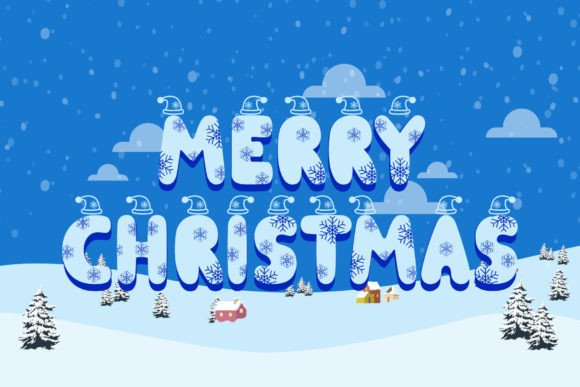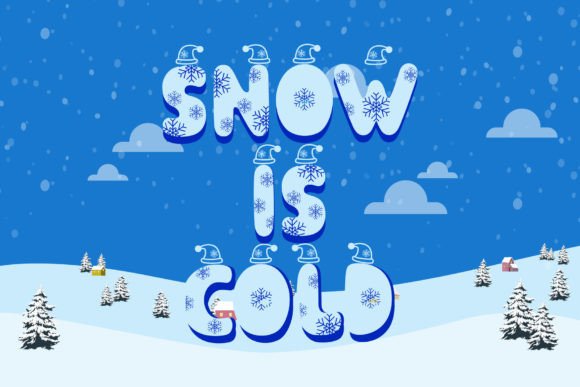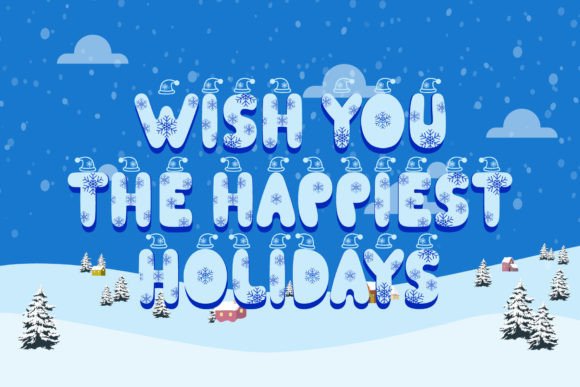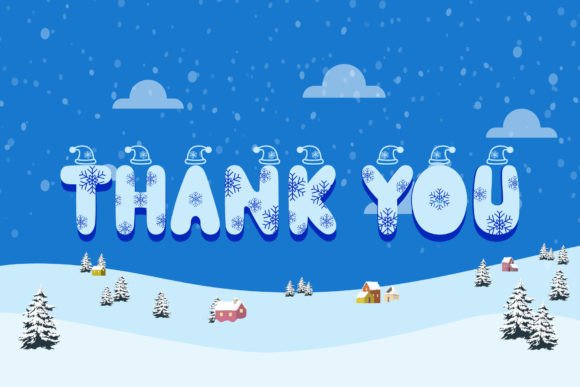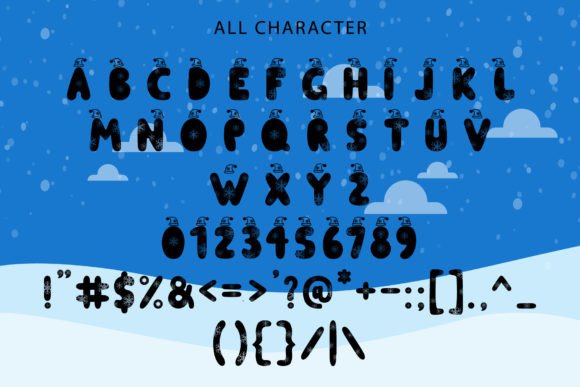
Christmas Snow Font: Add a Touch of Magic to Your Designs
Are you looking for a font that captures the essence of the holiday season? Do you want to add a touch of magic to your designs, greeting cards, and headlines? Look no further than the Christmas Snow Font! This versatile, stylish, groovy, and playful retro display font is perfect for a wide spectrum of applications, and we’re excited to dive into its features and uses.
What is Christmas Snow Font?
Christmas Snow Font is a unique and eye-catching typeface designed to evoke the feeling of a winter wonderland. Its playful and romantic vibe makes it an excellent choice for designers, crafters, and anyone looking to add a personal touch to their projects. With its exquisite and stylish design, this font is sure to make your creations stand out from the crowd.
Key Features of Christmas Snow Font
- Versatile: Christmas Snow Font is suitable for a wide range of applications, from greeting cards and headlines to posters, flyers, and more.
- Stylish: The font’s retro display design gives it a stylish and sophisticated look that’s perfect for adding a touch of elegance to your projects.
- Groovy: The playful and whimsical vibe of Christmas Snow Font makes it an excellent choice for designers looking to add a fun and carefree touch to their designs.
- Playful: The font’s playful design ensures that your projects will be eye-catching and engaging, perfect for capturing the attention of your audience.
Uses of Christmas Snow Font
Christmas Snow Font is perfect for a variety of projects, including:
- Greeting Cards: Add a personal touch to your holiday greeting cards with this beautiful and unique font.
- Headlines: Make your headlines stand out with Christmas Snow Font’s stylish and playful design.
- Posters and Flyers: Use this font to create eye-catching posters and flyers for your holiday events or promotions.
- Social Media Graphics: Add a touch of magic to your social media graphics with Christmas Snow Font.
- Invitations: Create beautiful and elegant invitations for your holiday parties or events.
Tips for Using Christmas Snow Font
To get the most out of Christmas Snow Font, here are a few tips:
- Pair it with other fonts: Experiment with pairing Christmas Snow Font with other fonts to create a unique and eye-catching combination.
- Use it sparingly: While Christmas Snow Font is beautiful, it’s best to use it sparingly to avoid overwhelming your design.
- Experiment with colors: Try out different colors and textures to add depth and interest to your design.
| Font Name | Christmas Snow Font |
| Author | Kido Studio |
Christmas Snow Font is a versatile, stylish, groovy, and playful retro display font that’s perfect for adding a touch of magic to your designs. With its exquisite and stylish design, this font is sure to make your projects stand out from the crowd. Whether you’re a designer, crafter, or simply someone looking to add a personal touch to your holiday projects, Christmas Snow Font is an excellent choice. So why wait? Add Christmas Snow Font to your creative projects today and make them shine!